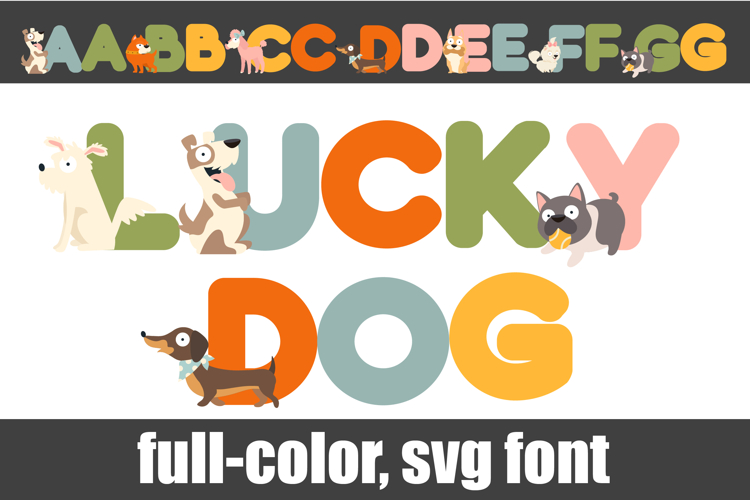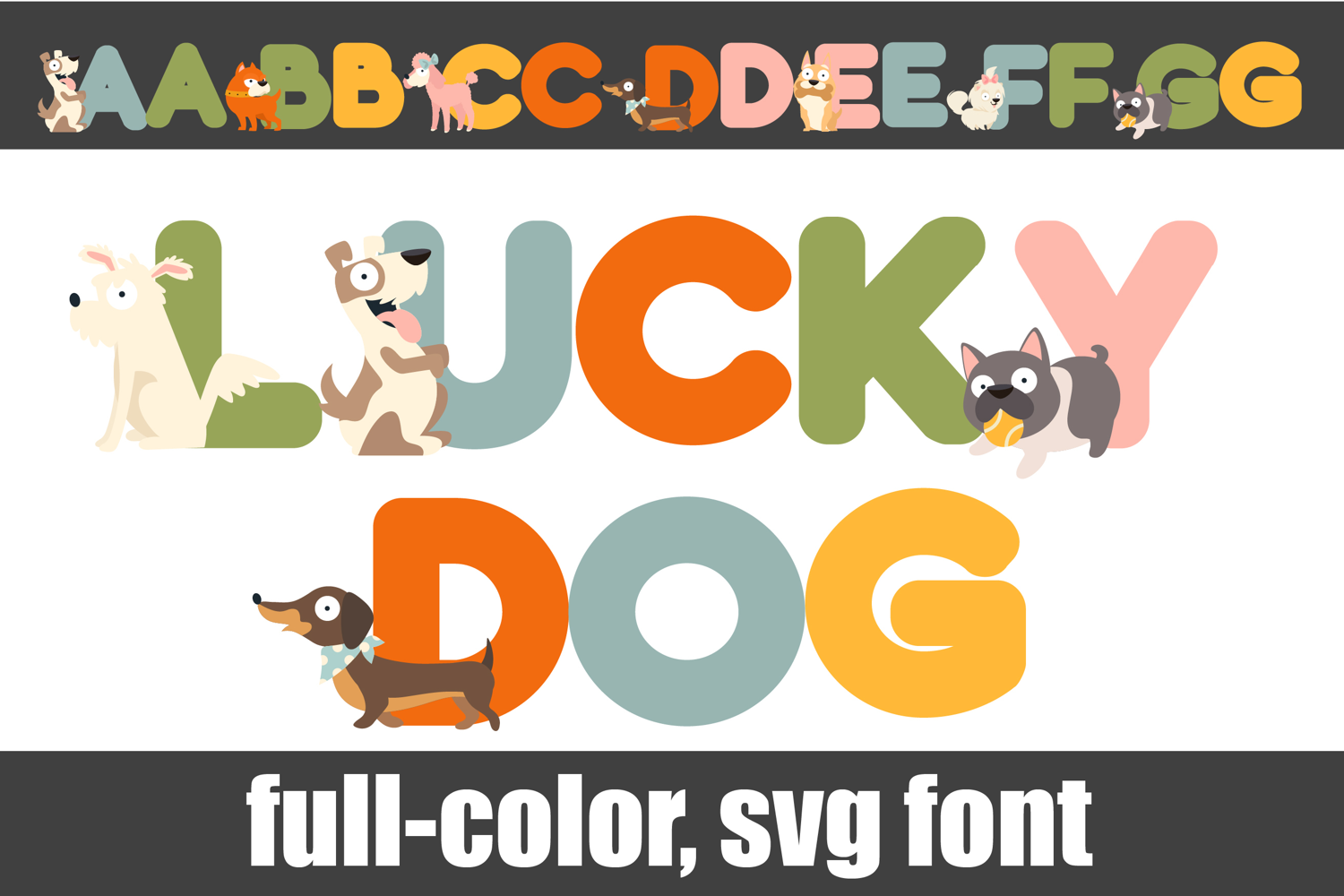
Lucky Dog Color Font
This full-color, whimsical font is a fun sans serif with dogs on the uppercase. There is an alt case with additional colors of all the letters you can access through your system's character maps.